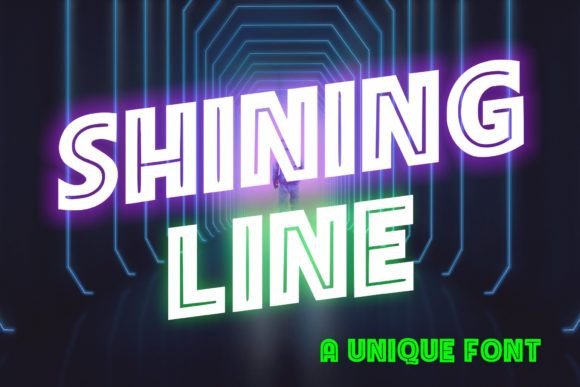
Dive into the world of visual brilliance with Shining Line, the font that brings boldness and coolness to your creative endeavors. This display font, crafted by the skilled hands of Riki.studio, is a modern masterpiece that exudes a luminous glow. Watch your designs transcend the ordinary as Shining Line elevates them with its captivating presence.
Experience the allure of modernity imbued within every curve and line. Shining Line is the epitome of contemporary design, seamlessly blending sharp edges with a touch of elegant curves, resulting in a visually striking font. Its clean lines and distinct letterforms create a striking impact that demands attention.
With Shining Line, you hold the key to unlocking a world of possibilities. From captivating logos that leave a lasting impression to stunning social media graphics that ignite engagement, this font is the perfect companion for your creative journey. Let Shining Line be your beacon of brilliance, guiding you towards design masterpieces that captivate and inspire.
Unleash your creativity and embark on a visual odyssey with Shining Line. This display font is not just a tool; it's a muse, a catalyst for ideas that ignite your imagination. Its versatility extends beyond product design, seamlessly adapting to a myriad of creative projects. Whether you're crafting eye-catching posters, designing unforgettable branding materials, or creating social media posts that spark conversations, Shining Line is your trusted ally.
Visualize your words transformed into radiant works of art, radiating an aura of sophistication and intrigue. Shining Line possesses the uncanny ability to elevate your designs, turning them into unforgettable expressions of creativity. Its luminous presence commands attention, leaving a lasting impact on your audience.
Join the ranks of creative visionaries who have harnessed the power of Shining Line to elevate their designs to new heights. Let this remarkable font ignite your imagination, empowering you to create masterpieces that resonate with your audience. Embrace the brilliance of Shining Line and unlock the true potential of your creative endeavors.